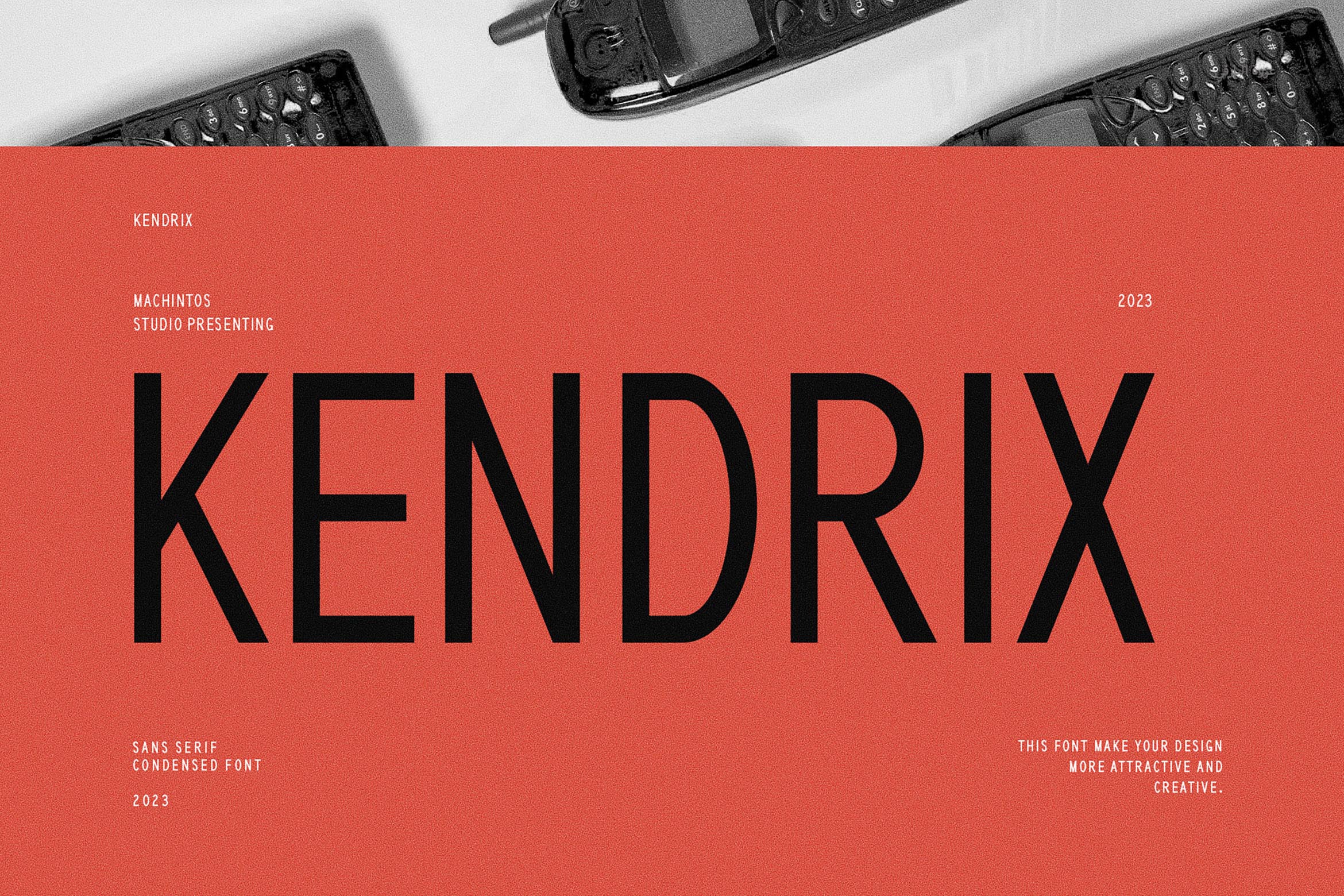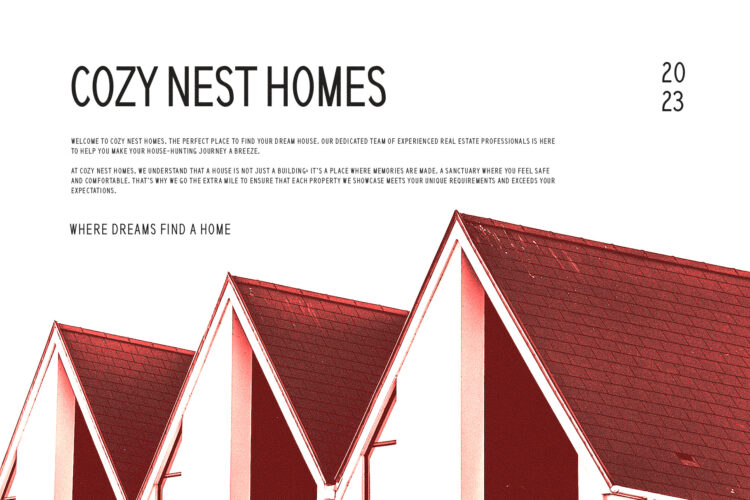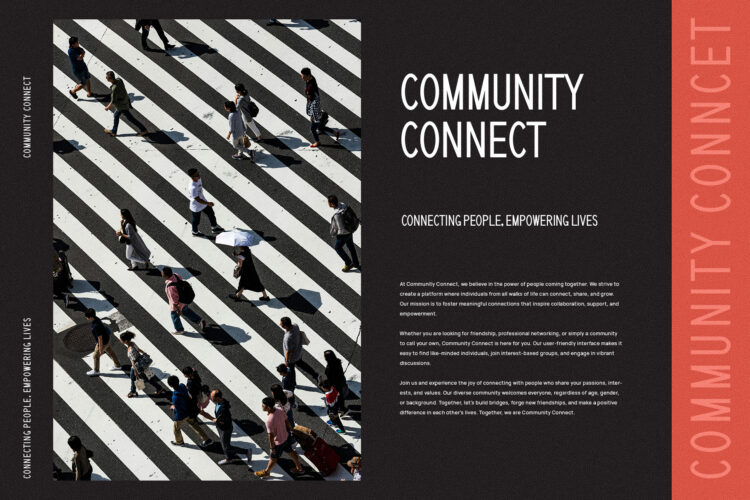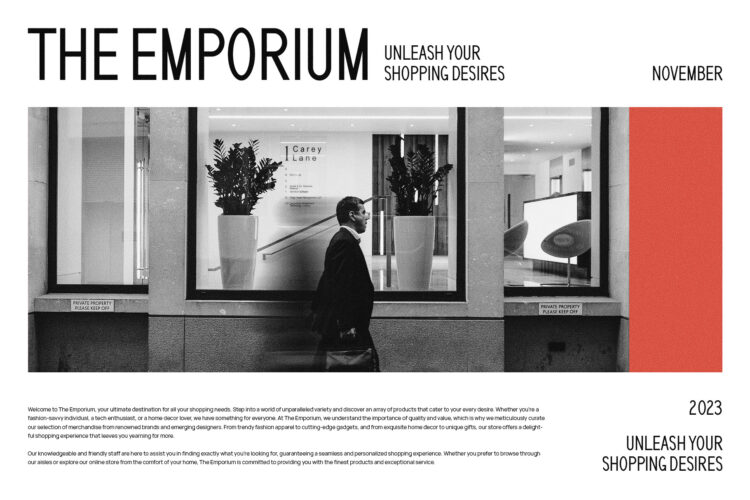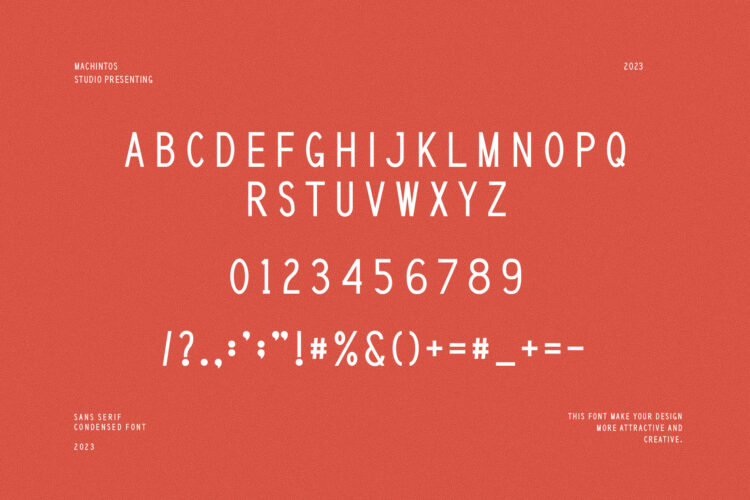
Introducing our new Kendrix, modern sans serif font with elegant style this is perfect for branding, logos, invitation, magazines, product packaging and more.
Kendrix – Modern Sans Serif